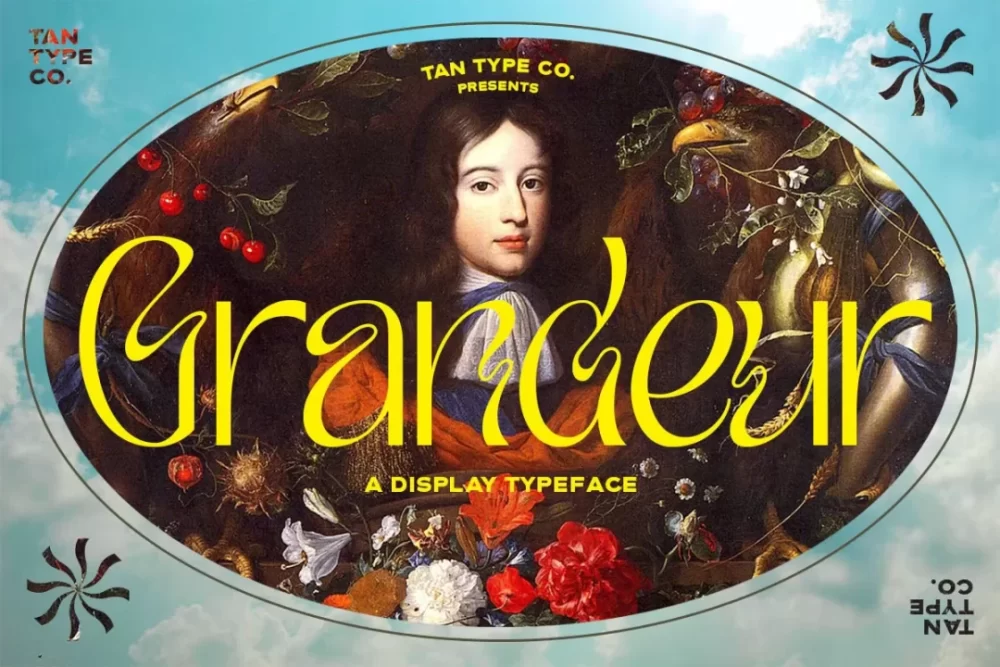
Tan – Grandeur Font
Tan – Grandeur is a highly stylized sans-serif font with a psychedelic vibe. It’s a unique and bold choice for various design projects.